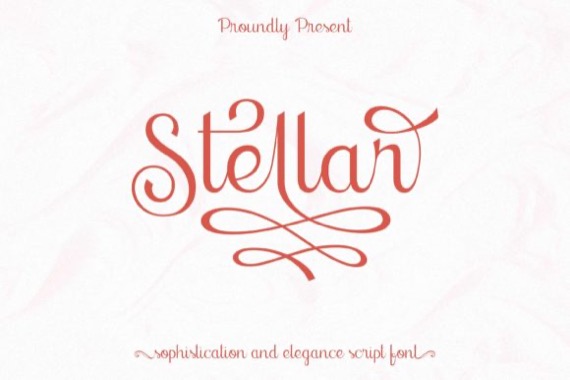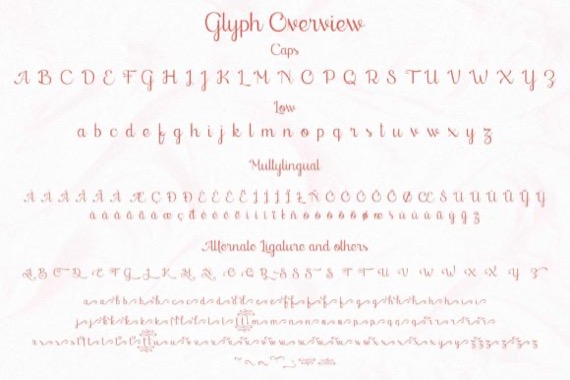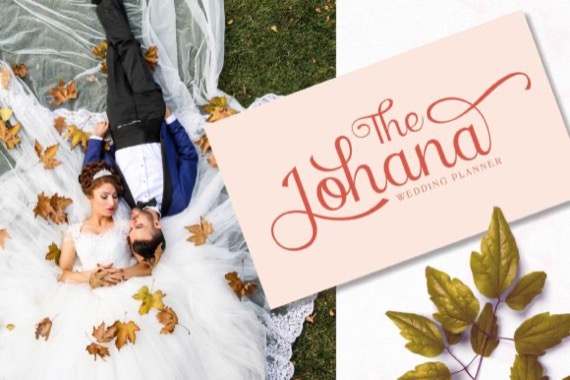
Stellar is an elegant and trendy sophisticated handwritten font that was created and shared by Love Army with gorgeous calligraphic elements. Fall in love with its unique, personal charm!
Stellar Handwritten Script Font